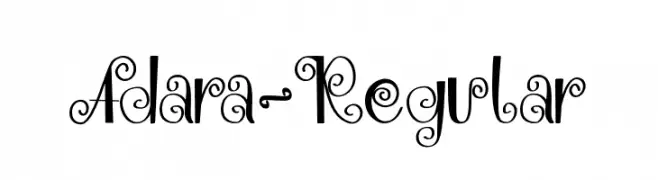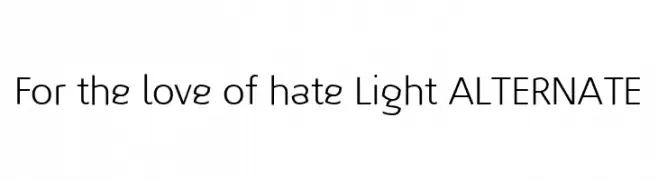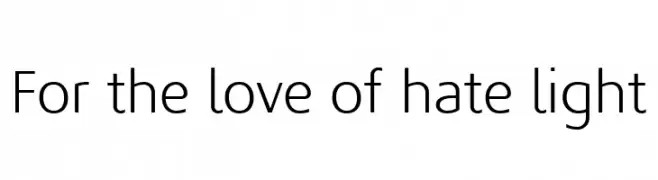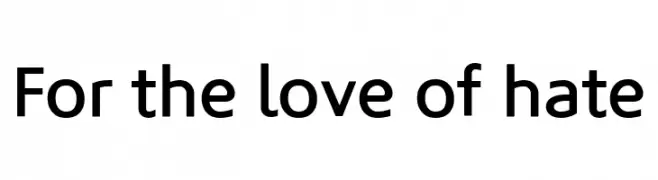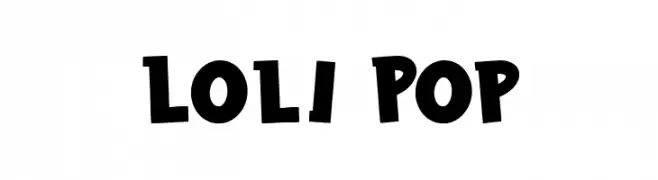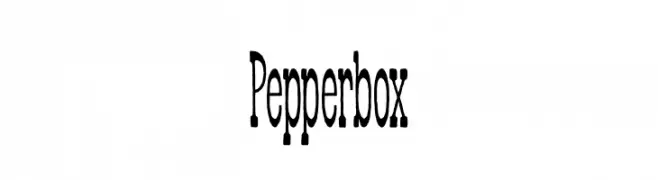
A modern, geometric sans-serif font with clean lines and balanced spacing.
A modern sans-serif font with rounded edges and a clean, approachable style.
A bold, classic serif font with high contrast and elegant details.
A modern, light sans-serif font with a clean and elegant design.
A modern, geometric sans-serif font with clean lines and uniform strokes.
A bold, playful font with rounded, hand-drawn characters.
A bold, playful font with exaggerated curves and a whimsical style.
A whimsical and decorative font with intricate curls and swirls.
A bold, decorative font with tall, narrow letters and rounded ends.